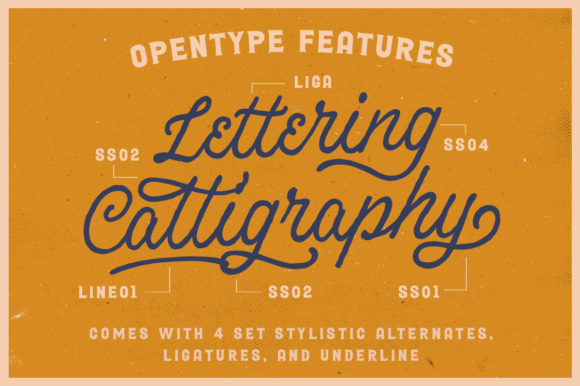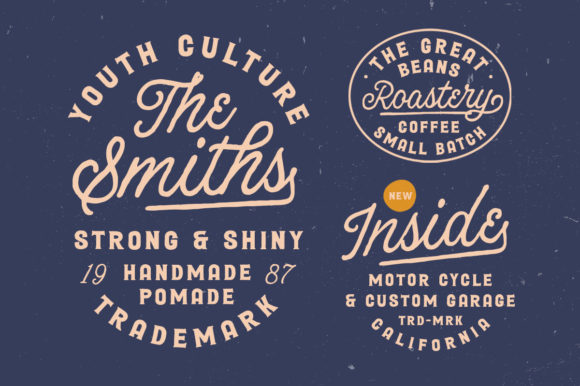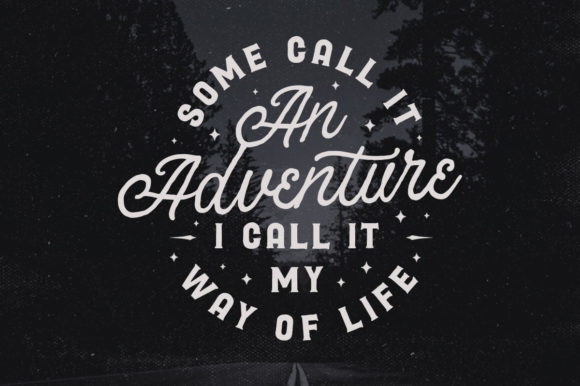
Broadley Font
Broadley feels playfully nostalgic and delivers an incredible vintage aesthetic. Use this duo font to add that special retro touch to any design idea you can think of!